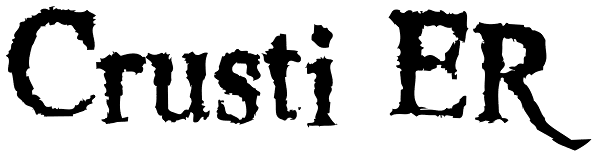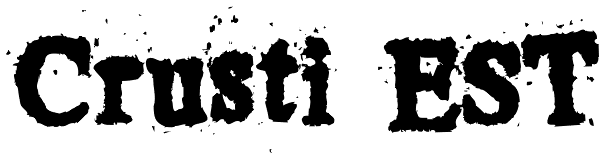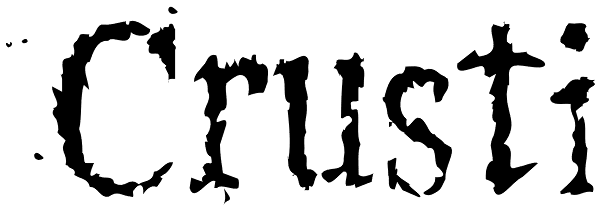
Crusti
In 1993, Chank designed Crusti, Crustier, Crustiest and Crusti Wacky to use in CAKE, a fanzine that celebrated grunge music. With a D.I.Y. ethic, inspiration from the likes of Nirvana, and a copier at Kinko's, Chank created his own fonts. Chank made...
Crusti ER
Crusti EST
Crusti